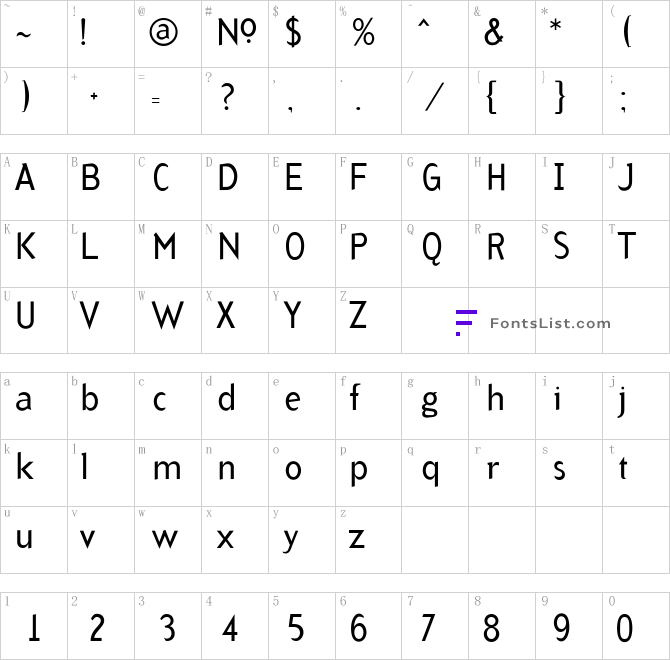
- Font Name:ArbPercent
ArbPercent.ttf is a very beautiful artistic font, ArbPercent.ttf is widely used in the design and printing of various books and pictures,ArbPercent.ttf has a strong visual impact,ArbPercent.ttf is a commonly used font in newspapers, magazines and books, and is used in posters, e-commerce Poster design, store design, logo design, font design and other fields.ArbPercent.